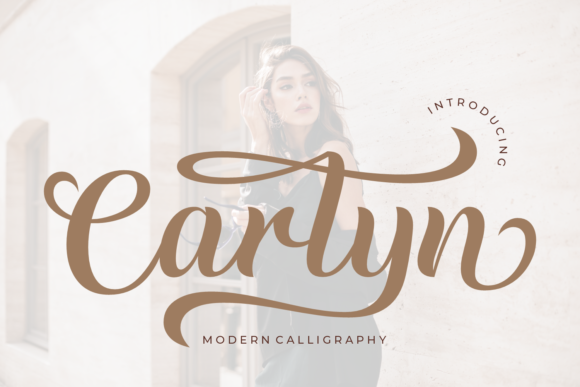
The Quest for the Perfect Font: Discovering Carlyn
I still remember the time I was working on a wedding invitation design project, and I was on a mission to find the perfect font. My client wanted something elegant, yet playful, and I was determined to deliver. After hours of scrolling through font libraries and testing out different options, I stumbled upon Carlyn – a stunning handwritten font that took my breath away. With its beautifully rounded characters and cursive style, I knew I had found the one. In this article, I’ll share my love for Carlyn, its features, and how to make the most of it in your designs.
Carlyn: A Beautiful Handwritten Font
Carlyn is a gorgeous handwritten font that exudes elegance and sophistication. Its cursive style and rounded characters make it perfect for a variety of design projects, including:
- Wedding designs
- Birthday cards
- Business cards
- Invitations
- Branding
- Apparel
- 💕 Beautifully rounded characters that add a touch of elegance to any design
- ✅ Easy to read, even in smaller sizes
- 🎨 Highly versatile and can be used for a variety of design projects
- 👍 Well-suited for both digital and print designs
- ⚠️ Limited character set, which may not be suitable for designs that require a wide range of characters
- 🤔 May not be the best choice for body text, as it can be a bit too ornate
The Story Behind Carlyn
Carlyn was designed by a talented type designer who’s passionate about creating beautiful and functional fonts. The font was inspired by traditional calligraphy and handwriting, with a modern twist. The designer aimed to create a font that’s elegant, yet playful, and can be used for a variety of design projects.
Q: What type of designs is Carlyn best suited for?
A: Carlyn is a versatile font that can be used for a variety of design projects, including wedding designs, birthday cards, business cards, invitations, branding, and apparel.